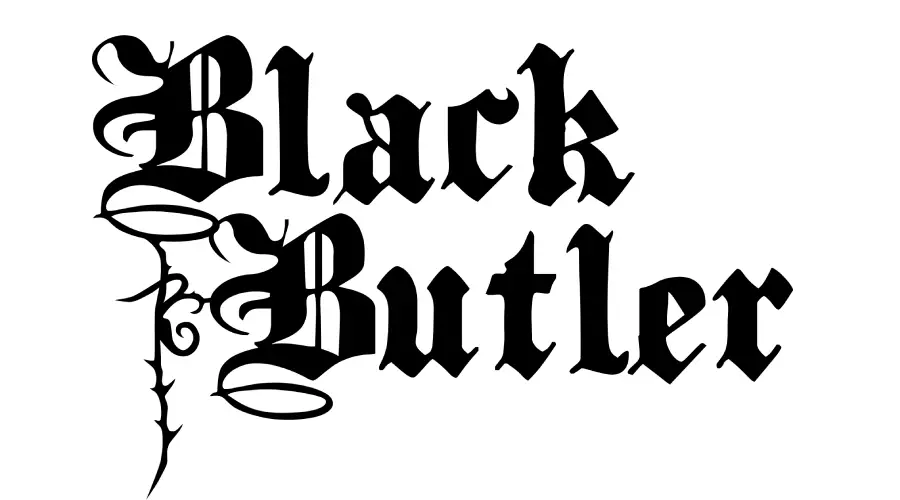
The Black Butler Font is a distinctive gothic-style typeface often associated with the popular anime and manga series Black Butler (Kuroshitsuji). The font used in the logo and promotional materials has a classic, elegant, and slightly sinister feel, matching the dark Victorian aesthetic of the series.
While there isnβt an officially licensed Black Butler font, here are the closest alternatives:
Black Family by Paul Lloyd This is a replica font designed to closely match the Black Butler logo.
Fette Gotisch by Linotype A classic Gothic blackletter font with a similar aesthetic.